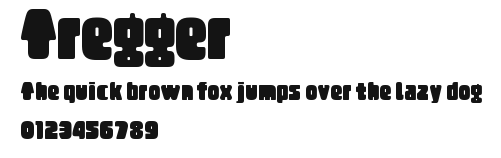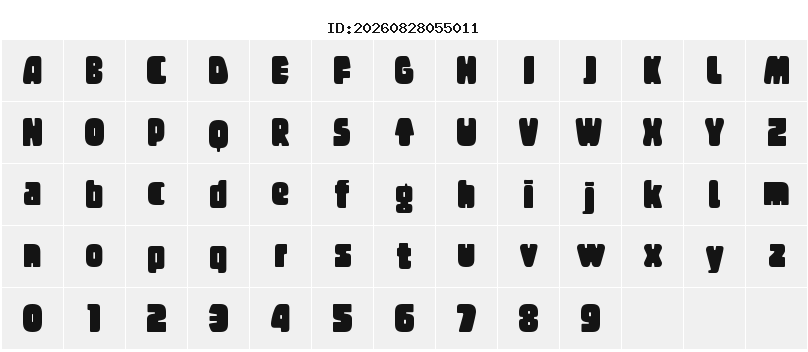
• Font Name: Tregger
• Full Font Name: Tregger
Tregger.ttf is a modern, elegant sans-serif font designed for ultimate readability and visual harmony. Perfect for branding, headlines, web design, and print materials.